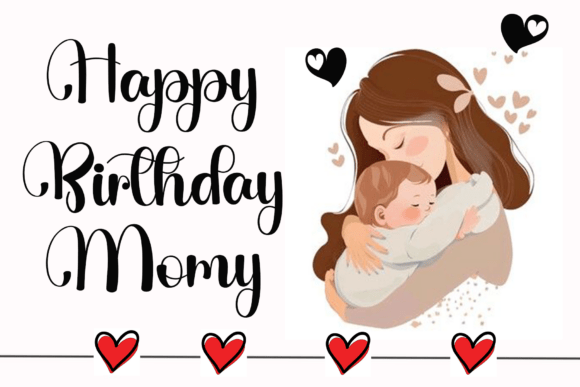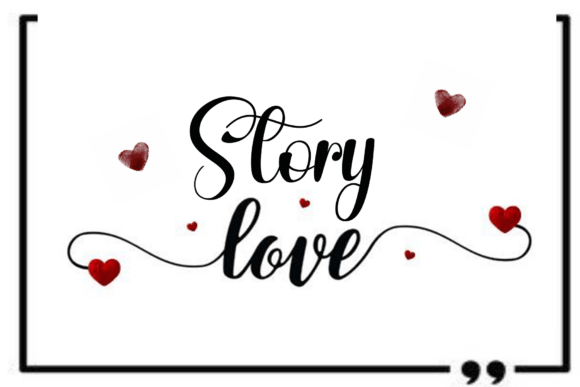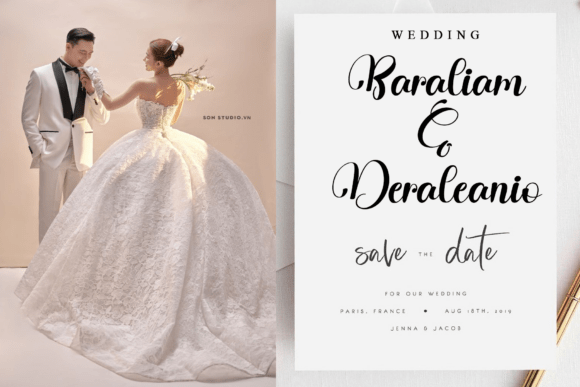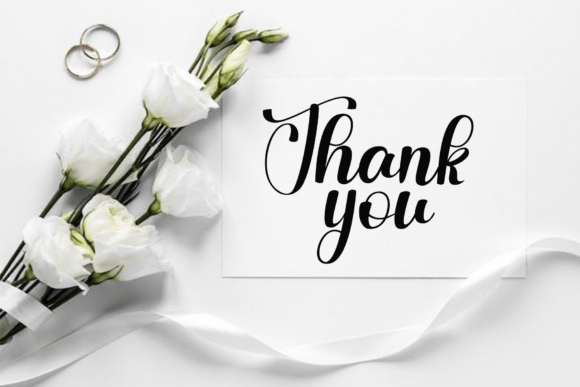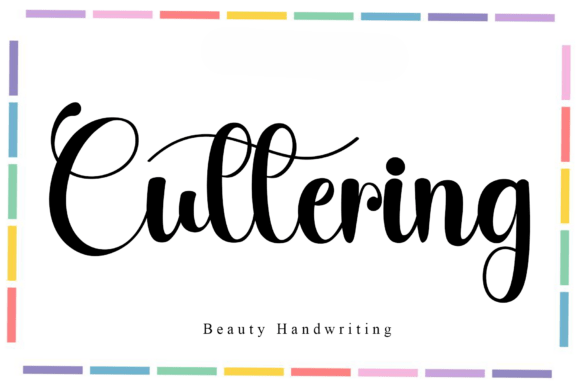
Cuttering Font: Elevate Your Designs with Elegance and Sophistication
In the world of typography, few fonts manage to capture the essence of elegance and sophistication as beautifully as Cuttering. This charming handwritten script font is designed to bring a bold, elegant flow to your designs, making it perfect for a variety of creative projects. With its graceful curves, expressive style, and stunning swashes, Cuttering is sure to become your go-to font for wedding designs, feminine branding, greeting cards, invitations, and quote art.
The Characteristics of Cuttering Font
Cuttering is more than just a font; it’s an experience. Its modern yet romantic personality shines through in every letter, bringing a touch of sophistication and warmth to every project. The font’s design is characterized by:
- Bold and Elegant Flow: Cuttering’s bold strokes and elegant flow make it perfect for designs that require a sense of luxury and refinement.
- Graceful Curves: The font’s graceful curves add a touch of femininity and softness, making it ideal for feminine branding and wedding designs.
- Beautiful Swashes: Cuttering’s stunning swashes add a decorative touch to your designs, making them stand out from the crowd.
- Expressive Style: The font’s expressive style makes it perfect for quote art, greeting cards, and invitations, where you want to convey a sense of personality and emotion.
Perfect for Wedding Designs and Feminine Branding
Cuttering is specifically designed to cater to the needs of designers and crafters who specialize in wedding designs and feminine branding. The font’s elegant flow, graceful curves, and beautiful swashes make it perfect for:
- Wedding Invitations: Create stunning wedding invitations that set the tone for the big day.
- Wedding Stationery: Use Cuttering to design beautiful wedding stationery, including save-the-date cards, thank-you notes, and more.
- Feminine Branding: Add a touch of elegance and sophistication to your brand’s identity with Cuttering.
Ideal for Greeting Cards, Invitations, and Quote Art
Cuttering’s expressive style and beautiful swashes make it perfect for a variety of creative projects, including:
- Greeting Cards: Create stunning greeting cards for special occasions, such as birthdays, anniversaries, and holidays.
- Invitations: Design beautiful invitations for parties, events, and other celebrations.
- Quote Art: Use Cuttering to create inspiring quote art that showcases your favorite quotes and phrases.
Why Choose Cuttering Font?
With so many fonts available, why choose Cuttering? Here are just a few reasons why Cuttering stands out from the crowd:
- Unique and Exclusive: Cuttering is a unique and exclusive font that will set your designs apart from others.
- High-Quality Design: The font is designed with high-quality craftsmanship, ensuring that it looks stunning in any design.
- Versatile: Cuttering is a versatile font that can be used for a variety of creative projects, from wedding designs to quote art.
In conclusion, Cuttering is a charming handwritten script font that is sure to elevate your designs with elegance and sophistication. Its bold and elegant flow, graceful curves, and beautiful swashes make it perfect for wedding designs, feminine branding, greeting cards, invitations, and quote art. With its modern yet romantic personality, Cuttering brings sophistication and warmth to every project. So why wait? Choose Cuttering today and take your designs to the next level!